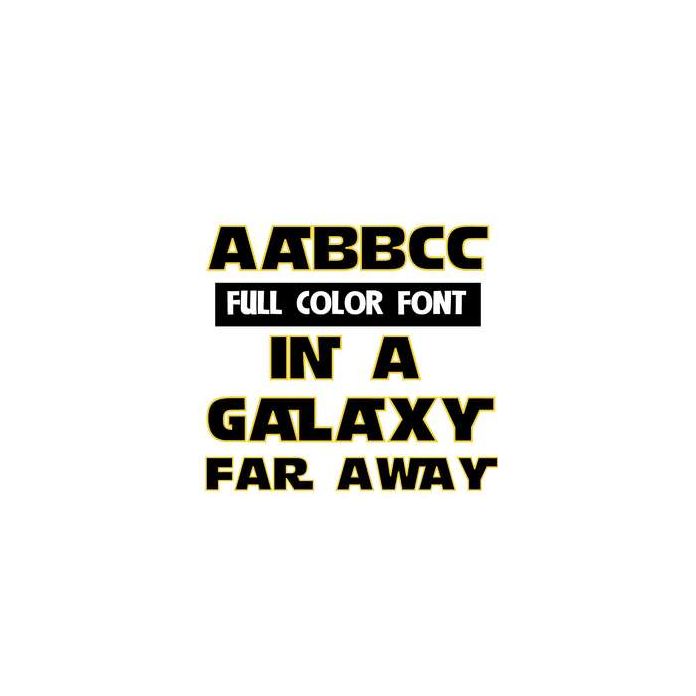
This full-color font has an upper with extra blocks and lowercase without. Mix up both cases for best results. Check out the ligatures: rs,st,wa, and al. This font works best for titles, displays, posters and more. Please note color fonts will show as black in non compatible programs. This font type is compatible with Silhouette Studio.